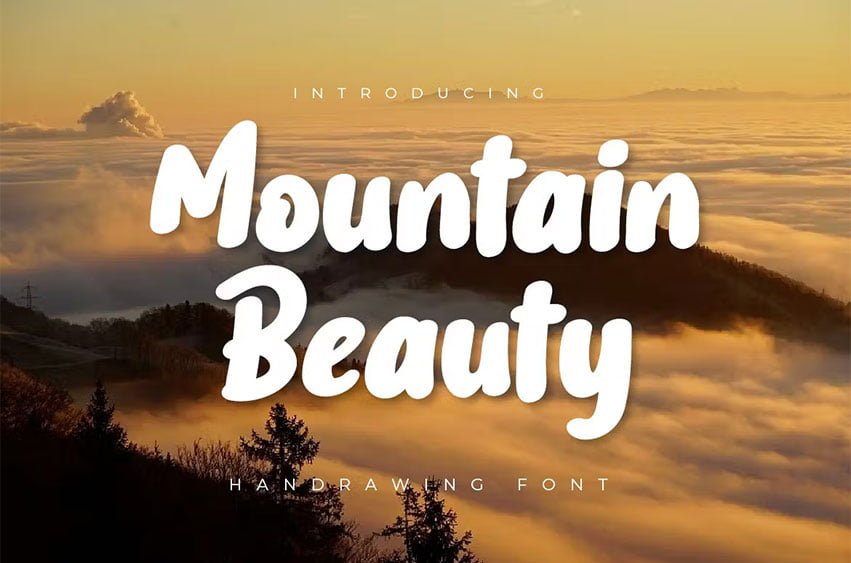
Mountain Beauty Font is a natural-looking handwritten font created with dramatic handwriting. This font is ideal for a wide range of projects and offers a lot of flexibility in terms of where you may use it. With this typeface, you’ll be able to create a visually appealing presentation.